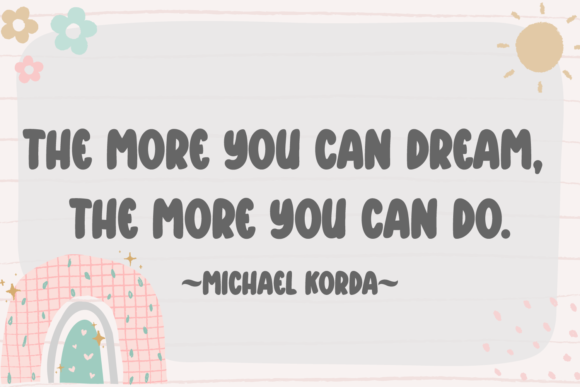
Balloon Bold Font
Balloon Bold is a cute, friendly and fun display font. Whether you’re using it for crafts, logos, digital design, presentations, or making greeting cards, this font has the potential to become your favorite go-to font, no matter the occasion!